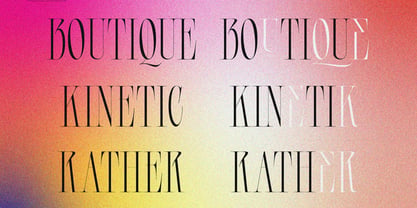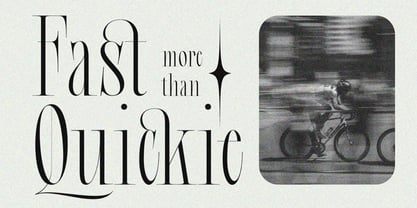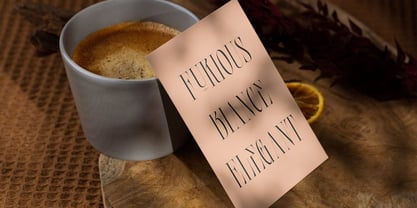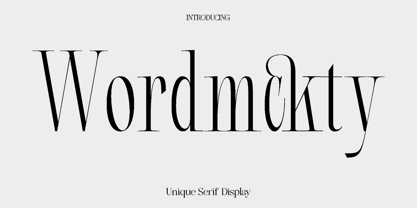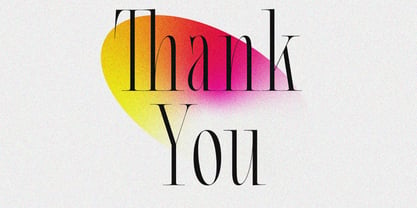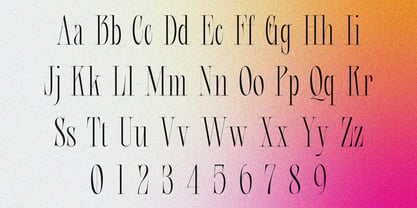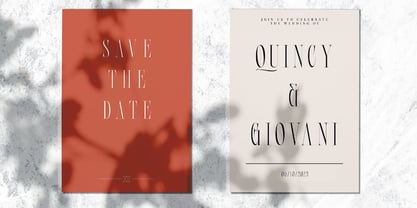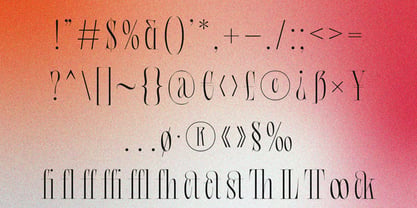
Wordmckty
by Only Fonts
The Wordmckty Font Family was designed by Olivia Love and published by Only Fonts. Wordmckty contains 1 styles. More about this family
Wordmckty – Elegant Serif Display Typeface Wordmckty is a distinctive serif display typeface that seamlessly merges timeless elegance with a contemporary creative spirit. Drawing inspiration from classic editorial typography and refined luxury branding, Wordmckty features graceful curves, sculpted serifs, and carefully balanced proportions, giving every word a polished and sophisticated presence. This typeface embodies both classic and modern aesthetics, making it a versatile tool for expressive and high-impact typography. Wordmckty excels in projects where visual character and style are paramount. It is an excellent choice for upscale branding, magazine headlines, fashion campaigns, packaging design, and premium logo creation. Its display nature ensures strong visual impact in larger sizes, while its clarity and thoughtful spacing maintain readability and elegance across various layouts. Whether creating a bold statement or a refined visual identity, Wordmckty infuses a sense of luxury and confidence into your work. The personality of Wordmckty is refined, stylish, and timeless. It transforms simple text into a visual experience, making it ideal for designers who wish for their typography to convey quality and sophistication. From editorial spreads to brand storytelling, Wordmckty delivers a memorable and elevated aesthetic that enhances both print and digital designs. Wordmckty Typeface Features: • Uppercase and lowercase characters • Symbols, punctuation, and numerals • Ligature support • Multilingual support
Designers: Olivia Love
Foundry: Only Fonts